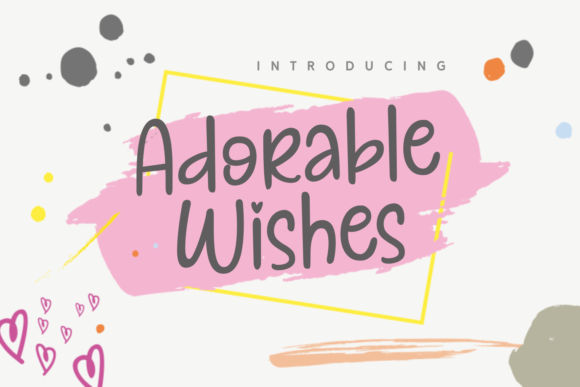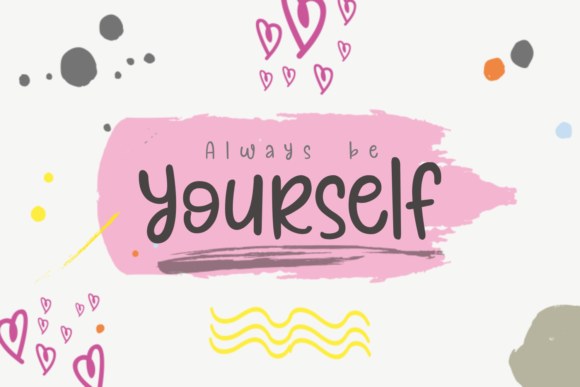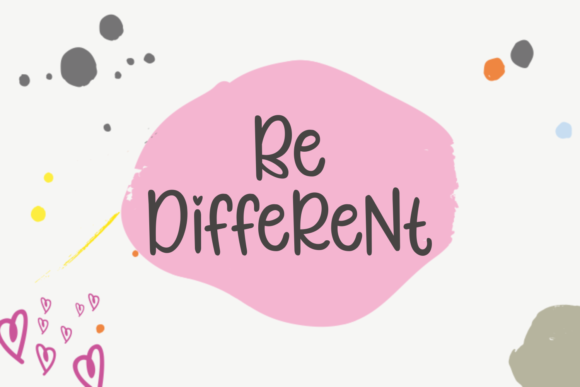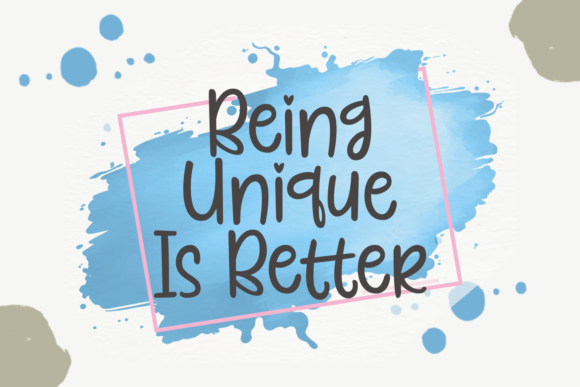
Adorable Wishes Font
About Adorable Wishes Font
Adorable Wishes is a beautiful and charming handwritten font with a lovely feel. It will add a romantic spark to any design project!